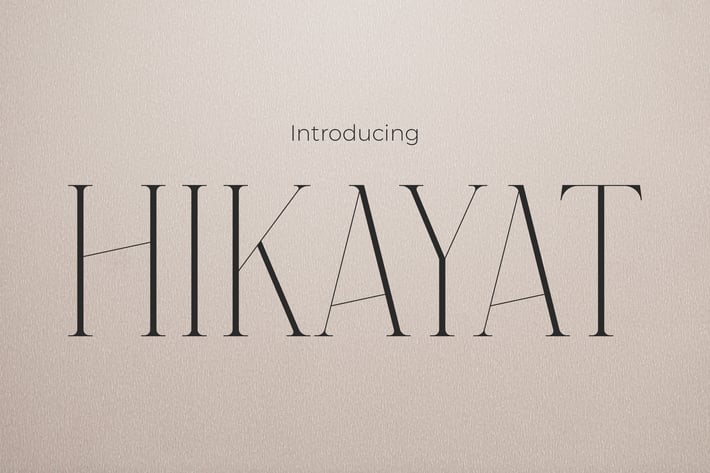
Hikayat Premium Elegant Serif Modern Font
HIKAYAT – Luxury Serif Typeface
High-contrast elegant font with tall letterforms, refined curves, and luxurious rhythm for fashion branding.
HIKAYAT offers a graceful visual presence through its slender vertical stems, fine stroke contrast, and generous spacing. With an editorial flair and soft classical energy, this font blends modern fashion aesthetics with timeless storytelling. Designed for sophistication, HIKAYAT features high cap height, geometric refinement, and subtly flared terminals, ideal for conveying elegance and poise in high-end designs.
Perfect for use in fashion editorials, packaging design, luxury branding, and Instagram visuals, HIKAYAT speaks the visual language of prestige. Whether you're curating a beauty brand, crafting a perfume ad, or elevating your online boutique, this font amplifies a sense of elegance and refinement. Its poised proportions and delicate contrast make it ideal for statement headlines that evoke class and intentionality.
Key Features :
Designed for Sophistication
- Tall, airy letterforms with high stroke contrast
- Subtle curves and smooth geometry for a polished look
- Luxurious spacing and rhythm for elegant layout balance
Best Use Cases
- High-end fashion branding
- Luxury product packaging
- Beauty and skincare labels
- Editorial layouts and lookbooks
- Personal branding for influencers and creators
Let your design story unfold in style—HIKAYAT brings visual harmony and upscale elegance to every letter. If you’re a brand designer, fashion editor, or creative director looking to elevate